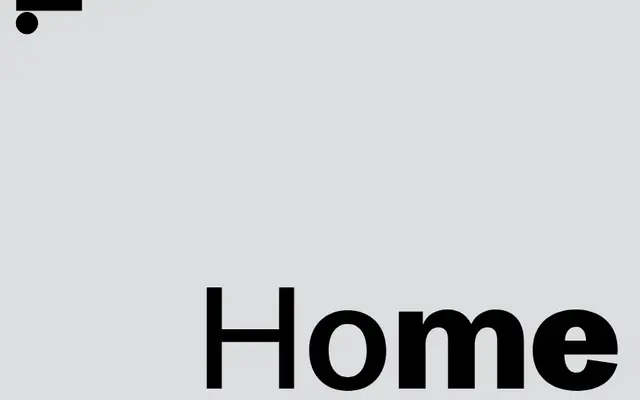
LL Home
Lineto · Clemens Piontek · 2017
LL Home specimen from Lineto
A geometric sans with a century of technological distortion baked into its letterforms, tracing a lineage from Futura through Linotype's Spartan Classified to a fully functional contemporary family.
Clemens Piontek spent several years maturing the shapes of LL Home, working from Linotype's 1951 Spartan Classified, a hot-metal newspaper font whose letters were individually compressed, shortened and altered purely for legibility at 5.5 pt. Those functional distortions, carried forward through phototypesetting and a hasty PostScript conversion, became the typeface's character. The family now runs to four weights with italics, a variable axis and two rounded subfamilies, and performs unusually well across both body text and display settings.
Descended from Futura via Linotype's Spartan and Spartan Classified, LL Home carries the geometric sans lineage but with idiosyncratic, historically accumulated letterform quirks that distinguish it from conventional geometric revival work.